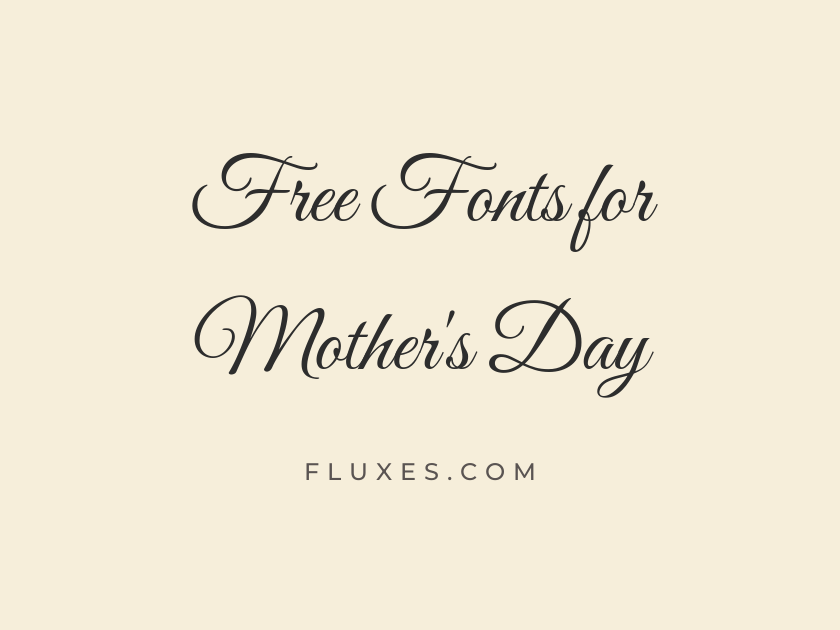
71 Best Free Fonts for Mother’s Day
Mother’s Day design work asks for a particular kind of warmth: fonts that feel personal, a little sentimental, and genuinely celebratory without tipping into greeting-card cliché. Whether you are building a card template, a florist’s promotional graphic, a brunch menu, or a simple “thank you, Mom” social post, the right typeface does most of the emotional work before a single word is read. Every option here is free on Google Fonts, so you can pull it straight into a design tool or download it for print without licensing headaches.
This is the flourish-heavy script that shows up on wedding invitations, and it translates beautifully to Mother’s Day headlines. Its long, looping ascenders photograph well on floral backgrounds, though it needs generous line spacing to keep those loops from colliding.
A softer, more casual cousin of formal calligraphy, with a brush-pen rhythm that reads as handwritten rather than engraved. Good for a signature line under a printed message.
Allura leans slender and refined, with connecting strokes that feel like fountain-pen cursive. It suits gift tags and small accent phrases better than long paragraphs.
There’s a romantic, old-world charm here, slightly wobbly in the best way, like a note written by hand at a café table. It pairs nicely with a clean sans-serif body for contrast.
Sacramento is compact and monoline, so it holds up at smaller sizes better than most connected scripts. It works well as a short caption under a photo rather than a full headline.
Formal and a touch old-fashioned, Pinyon Script has the character of engraved stationery. It’s a natural fit for a Mother’s Day card that wants to feel like a keepsake.
Bouncy and single-weight, Playball feels friendly rather than fancy, closer to a hand-lettered sign than formal calligraphy. It suits playful, lighthearted Mother’s Day messaging.
Originally designed for a surf shop logo, Pacifico carries a relaxed, retro-cursive personality that works surprisingly well for brunch menus and casual event flyers. It reads clearly even at moderate sizes, which is rare among rounded scripts.
One of the most widely used scripts on Google Fonts for good reason: it’s lively, legible, and dependable across weights. The bold cut in particular holds up as a headline on busy floral backgrounds.
Satisfy has a slightly rough, marker-drawn quality that feels less polished and more personal. It suits DIY cards and handmade-style gift wrap.
Kristi
A delicate, thin-stroked script that whispers rather than announces itself. Reserve it for short phrases; at paragraph length the thin strokes lose clarity.
This one genuinely resembles handwriting on a card, wandering baseline and all. It’s ideal for a closing signature or a short handwritten-style aside.
Mrs Sheppards
Slightly more upright and legible than its Delafield sibling, Mrs Sheppards still carries that intimate, personal-letter feeling. Use it for the greeting line at the top of a card.
Elegant and elaborate, with dramatic swashes on the capitals. It demands a simple, uncluttered layout so the letterforms have room to breathe.
Rouge Script sits between formal and friendly, with clean strokes and a confident slant. It works nicely as a secondary heading beneath a bolder serif title.
Rounded and unhurried, Marck Script has a gentle, storybook quality that suits illustrated cards and children’s gift tags aimed at moms.
Thick, confident strokes give Yellowtail a retro sign-painter feel rather than a delicate calligraphic one. It stands out as a bold accent word among quieter type.
Cookie’s name suits it: rounded, playful, and a little sugary. It’s a fun match for bakery-style Mother’s Day promotions and brunch invitations.
Tangerine at bold weight becomes surprisingly readable while keeping its thin, elegant default character. It photographs beautifully on letterpress-style or foil-effect designs.
As the name suggests, this is a small, tidy, formal script better suited to short inscriptions than large display use. It brings a vintage stationery feel to place cards and gift tags.
Extremely fine, thread-like strokes make Italianno one of the most delicate scripts available; it shines on light backgrounds at large sizes but disappears at small ones.
On the web, load only the weights you actually use to keep page speed healthy. Google Fonts makes this easy since each family can be embedded with a single weight or two.
For print, check that thin scripts like Italianno or Qwigley are large enough to survive the printing process without hairline strokes disappearing.
Whichever direction you take, the goal is the same: type that feels sincere rather than generic. With this many free, well-crafted options on Google Fonts, there is no need to reach for an overused default when designing something for Mom.